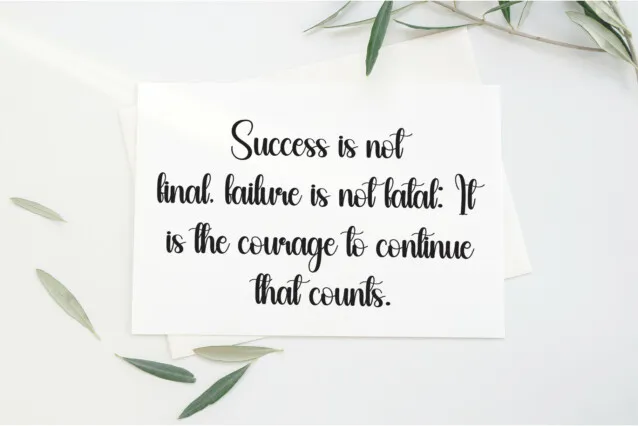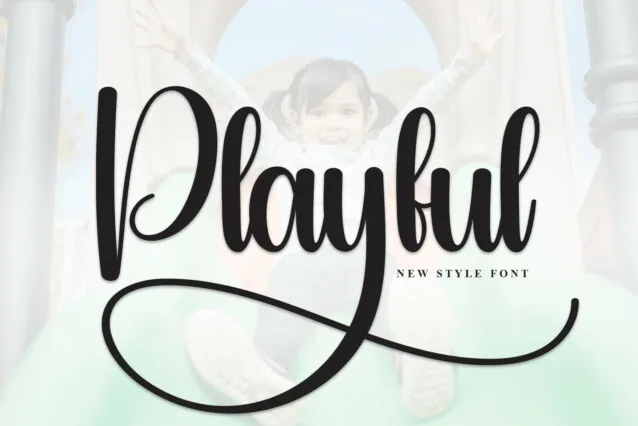
Playful Font Free Download
About Playful Font
Playful Font is an exuberant typeface that captures the pure joy and energy of childhood. With its bouncing baseline, irregular letter heights, and whimsical curves, this font feels like it's constantly in motion. Each character dances across the page with a personality that's both charming and endlessly entertaining.
Designed to evoke smiles and spark imagination, Playful Font features unexpected angles, surprise curves, and delightful imperfections that make every word feel like a celebration. The font maintains excellent readability while delivering maximum fun factor for projects that need to communicate happiness and creativity.
Best Uses
- Children's book titles and covers
- Educational materials and worksheets
- Party invitations and celebrations
- Toy packaging and branding
- Playroom decor and wall art
- Family-friendly websites and apps
- Birthday party decorations
- Creative learning centers